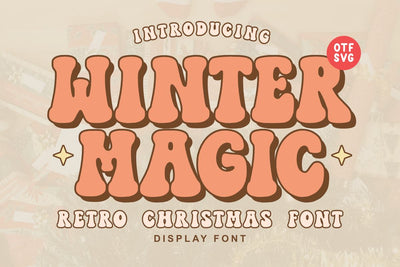
Winter Magic - Retro Christmas Font
Winter Magic is a retro-inspired display font that's perfect for adding a touch of vintage charm to your Christmas designs. With its bold, rounded letters and playful curves, this font will transport you back to the nostalgic days of Christmases past. Use it to create eye-catching Christmas cards, party invitations, or festive social media graphics.